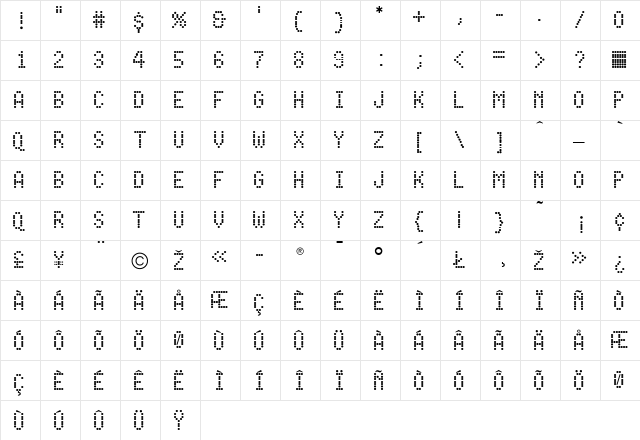
Scoreboard Regular
| Foundry | Digitized by Dan X. Solo. Software \ by Dover Publications, Inc |
Design Context for Scoreboard Typeface
Scoreboard is a composed and adaptable typeface that performs quietly and consistently across a wide range of design contexts.